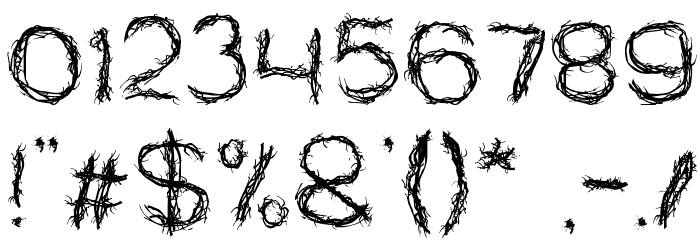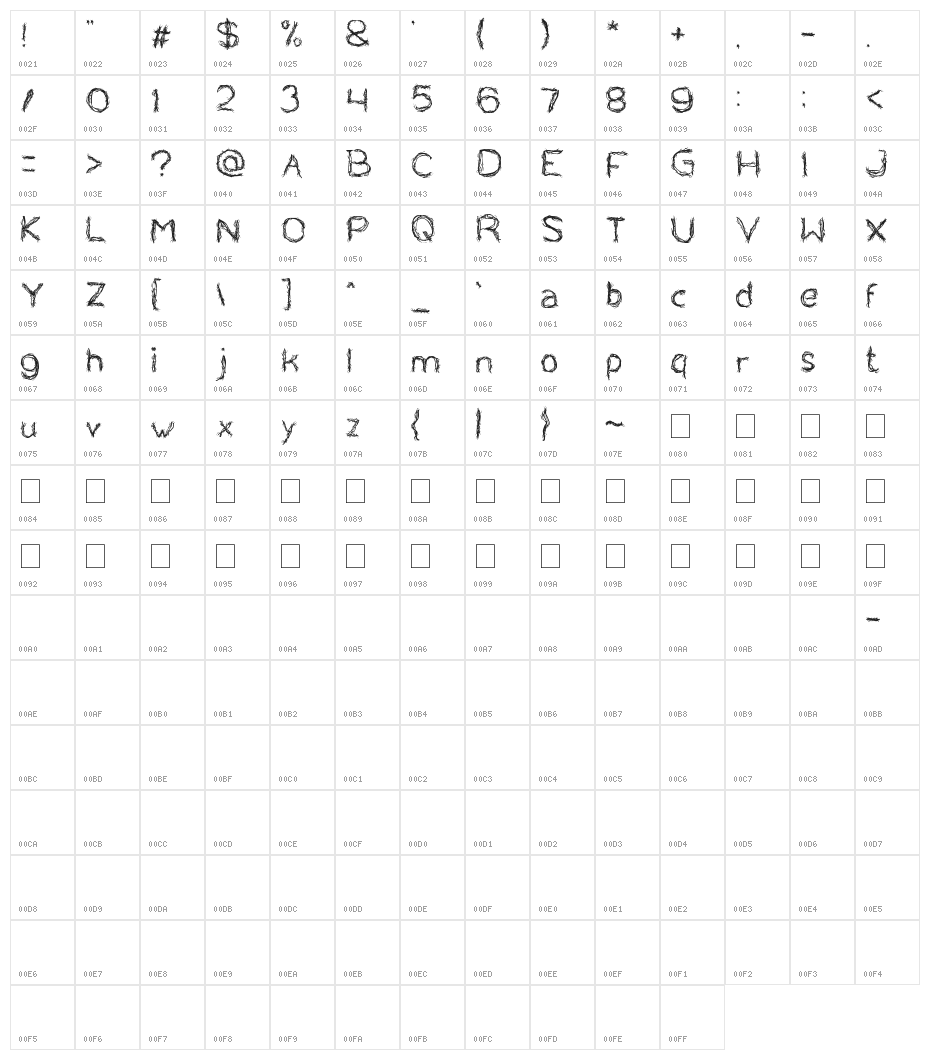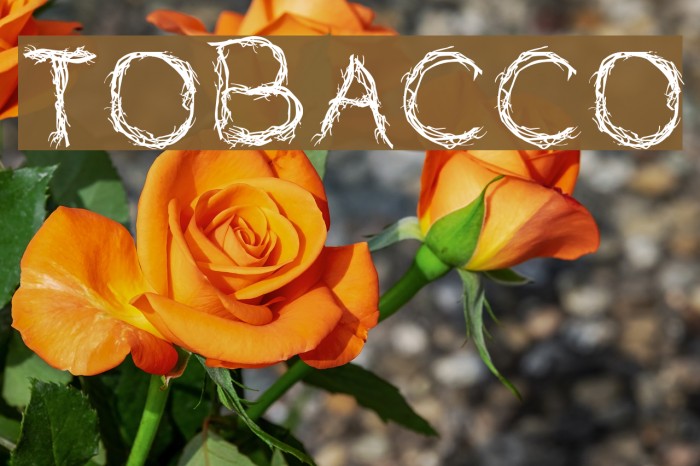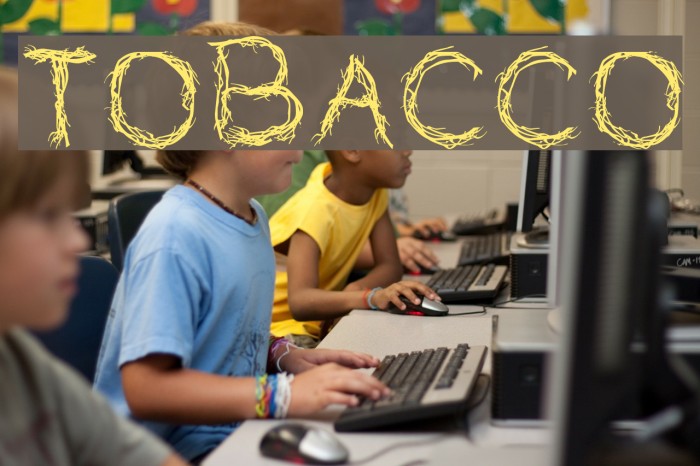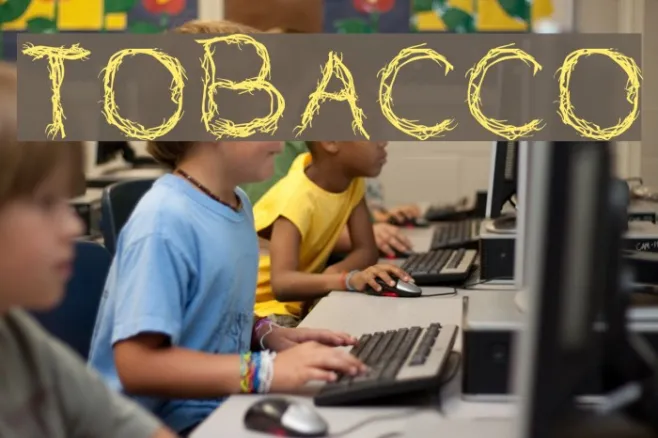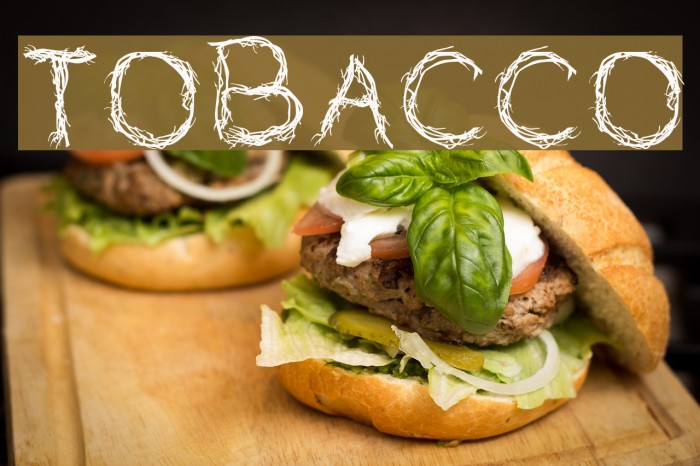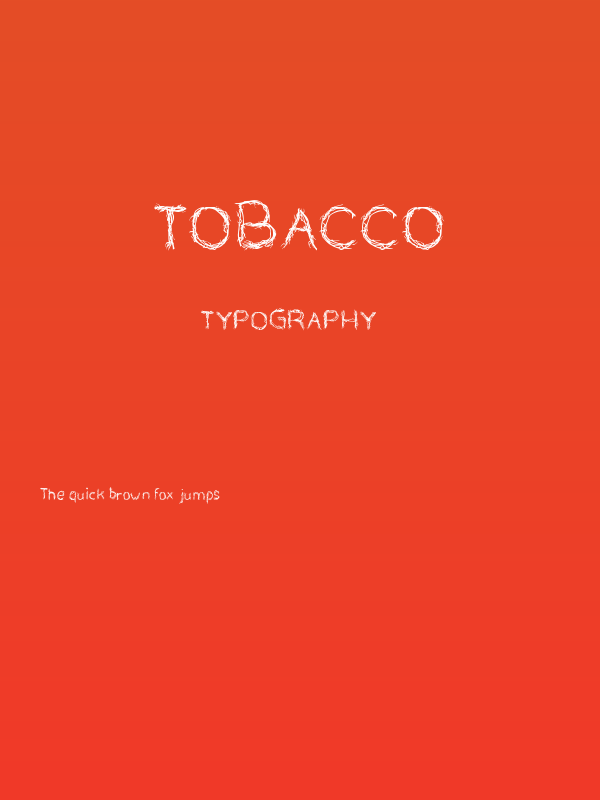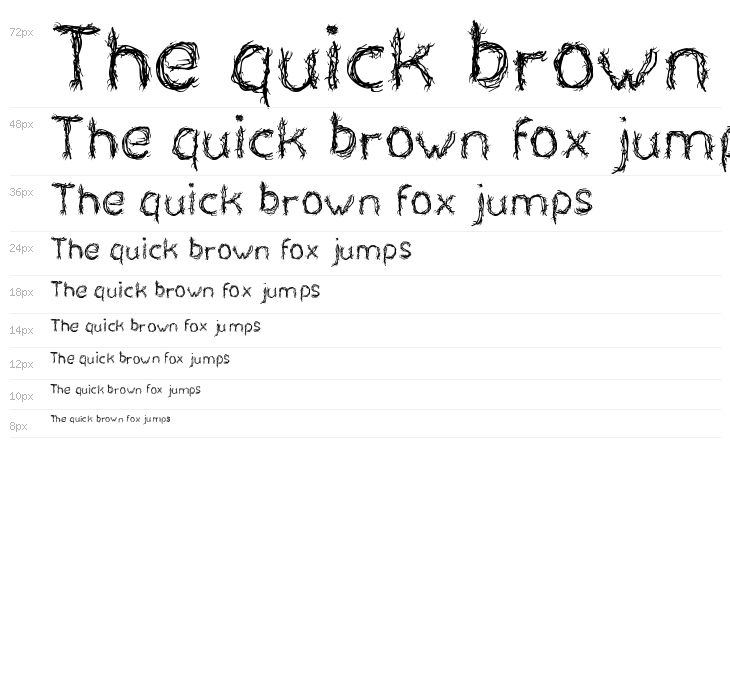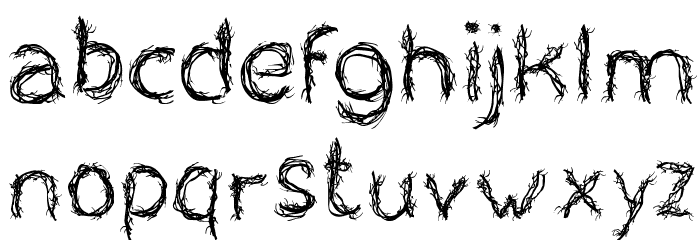
TOBACCO Font
TOBACCO Description
This font features a highly decorative and textured style, resembling tangled vines or intricate brush strokes. Each character is uniquely crafted with a rough, organic appearance, giving it a wild and untamed aesthetic. The letters are bold and expressive, with varying thicknesses that create a dynamic visual impact. The overall design is reminiscent of natural elements, making it suitable for projects that require a raw and artistic touch. The font maintains legibility despite its complex design, offering a unique blend of creativity and functionality.
| Proposed Projects | Ideal for artistic posters, album covers, branding for eco-friendly products, or any project seeking a natural, untamed look. |